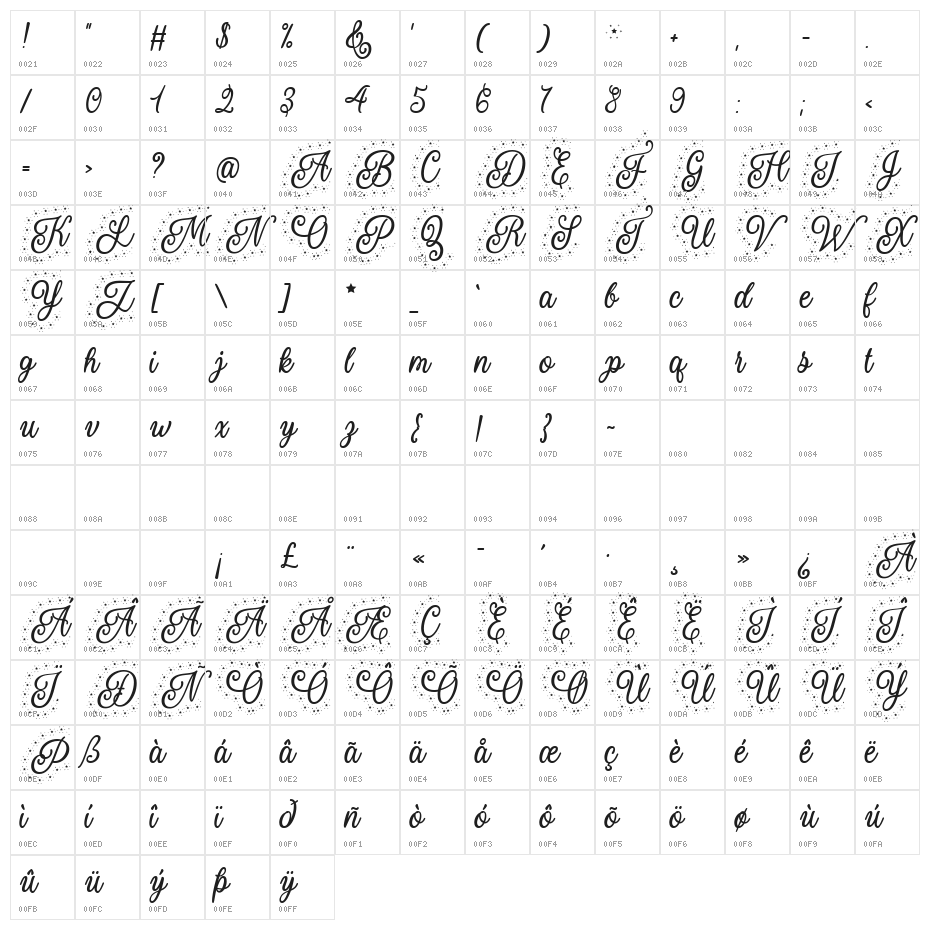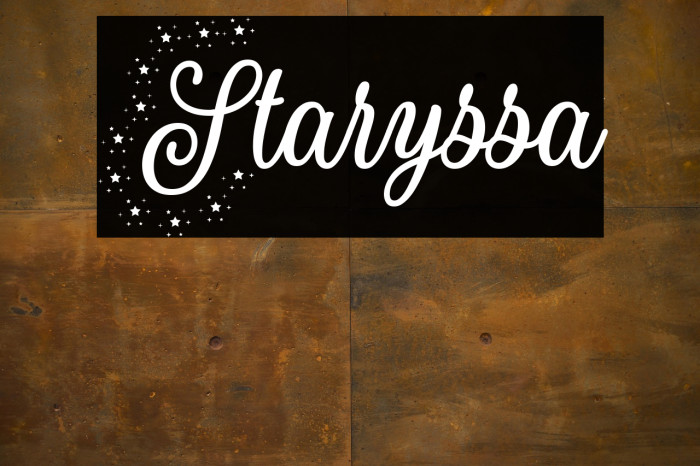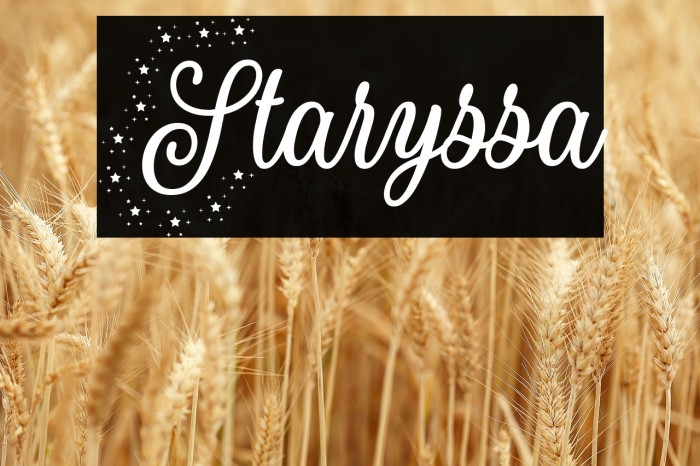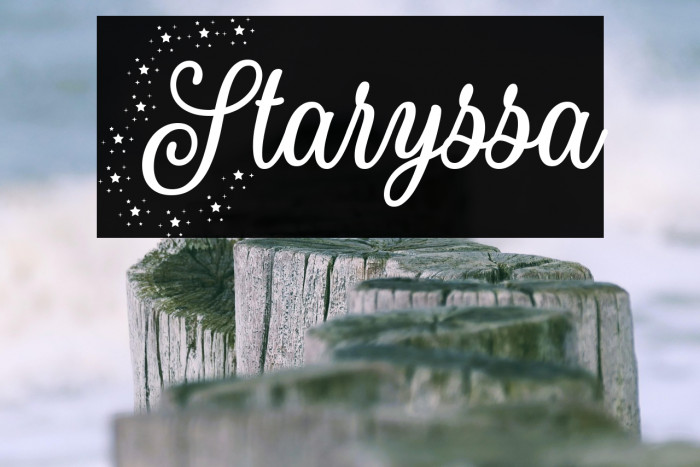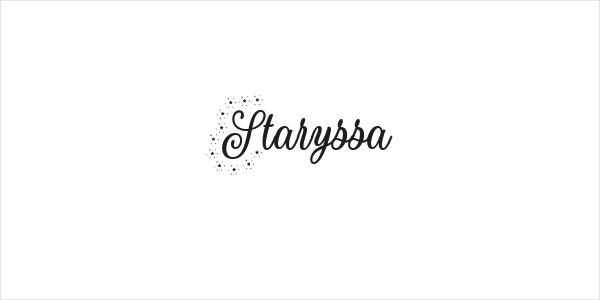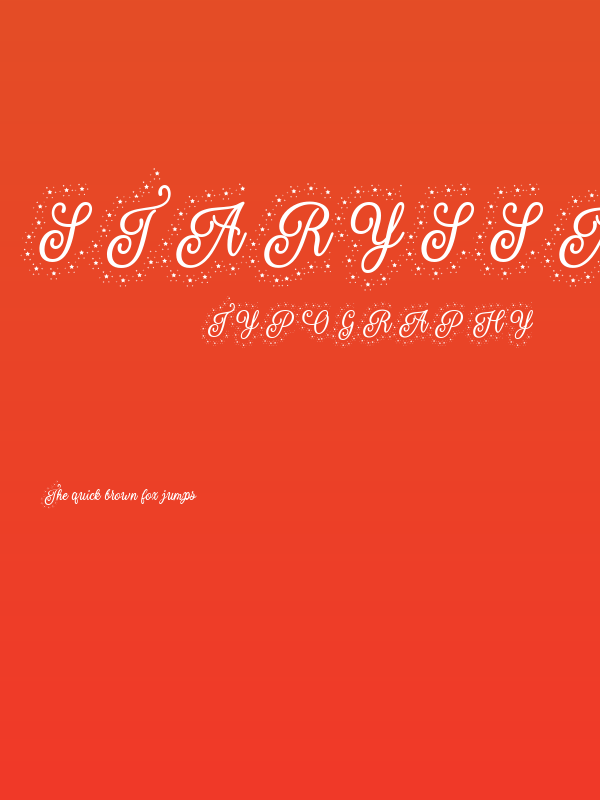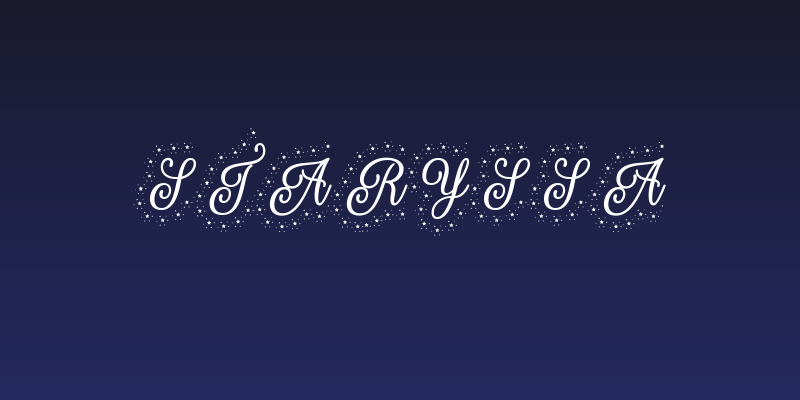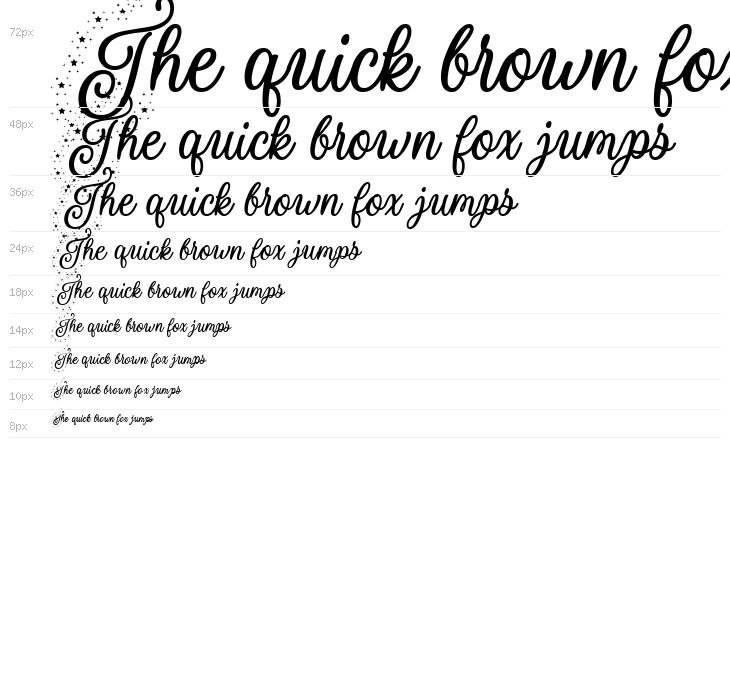
Staryssa Font
Staryssa Description
This font features an elegant and decorative script style, characterized by its flowing, cursive letters and intricate detailing. The uppercase letters are adorned with delicate star-like embellishments, adding a whimsical and magical touch. The lowercase letters maintain a smooth and connected flow, enhancing readability while retaining a sophisticated appearance. The numerals and special characters are consistent with the overall style, offering a cohesive look. This font is perfect for projects that require a touch of elegance and creativity, such as invitations, greeting cards, or branding materials.
| Proposed Projects | Ideal for wedding invitations, greeting cards, branding, and decorative projects. |